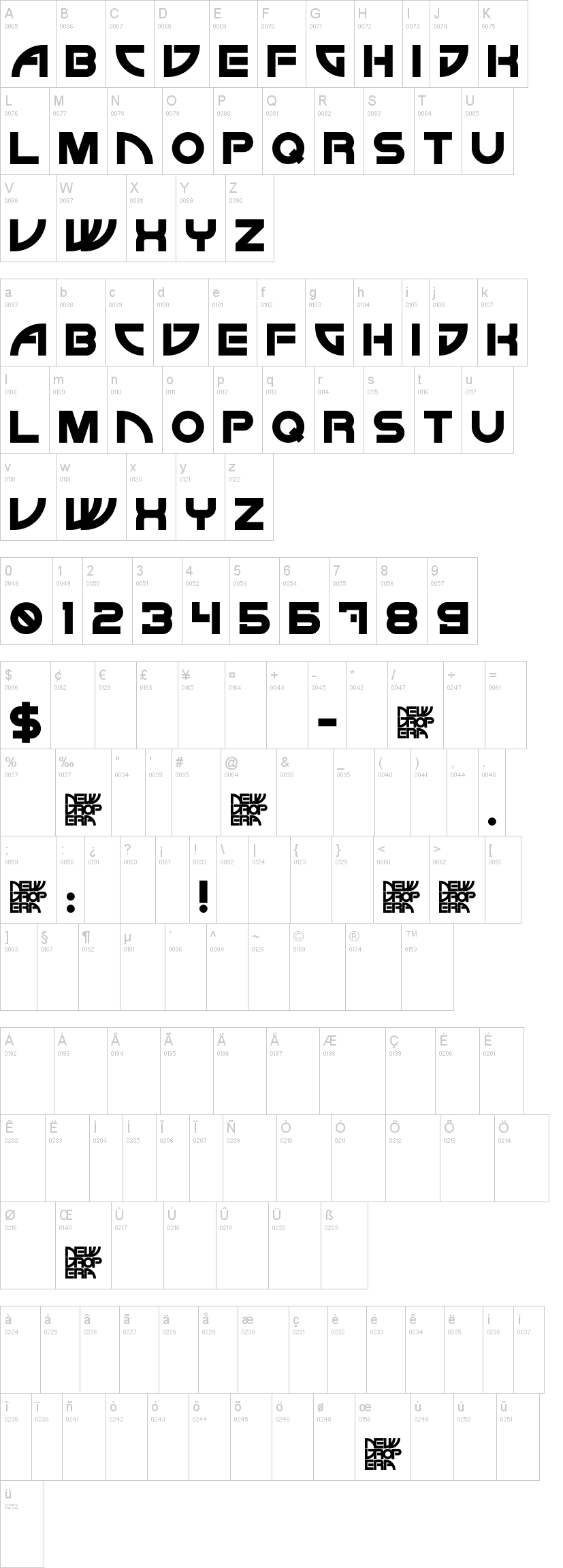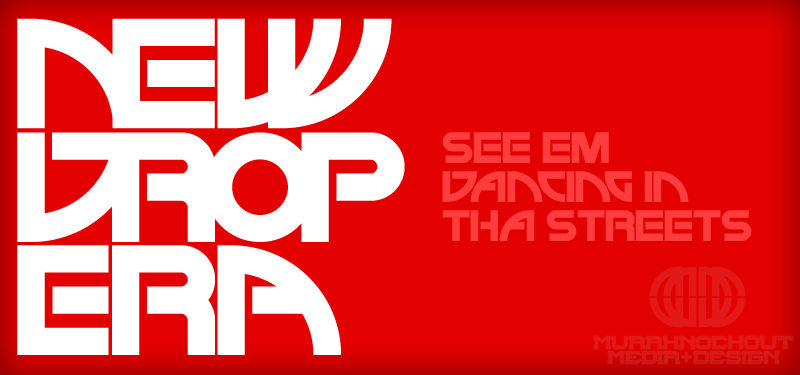
Шрифт New Drop Era
A font created for my friend and producer the New Drop Era. This font is intended for logo type. I came up with a logo design and decided to make a complete font out of it. Check out the New Drop Era on SoundCloud: http://soundcloud.com/newdropera